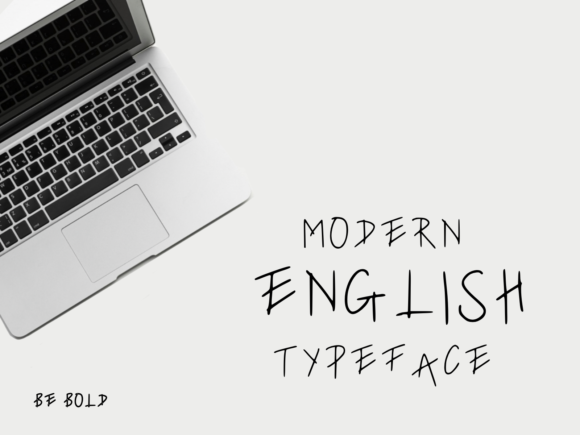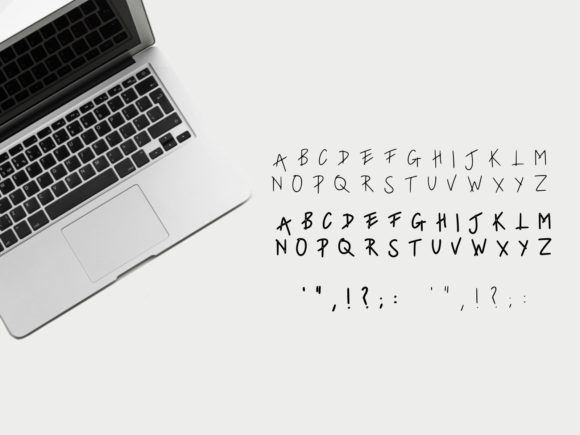
Introduction to Carefree Font
Carefree is a cute and thin sans serif font, carefully created with a touch of creativity.
Perfect for quirky projects with a modern touch, this font is sure to impress everyone .
Key Features of Carefree Font
Why Choose Carefree Font?
Carefree Font offers exceptional quality and versatility, making it a valuable addition to your design toolkit. Whether you’re creating for personal projects or commercial use, Carefree Font delivers professional results.